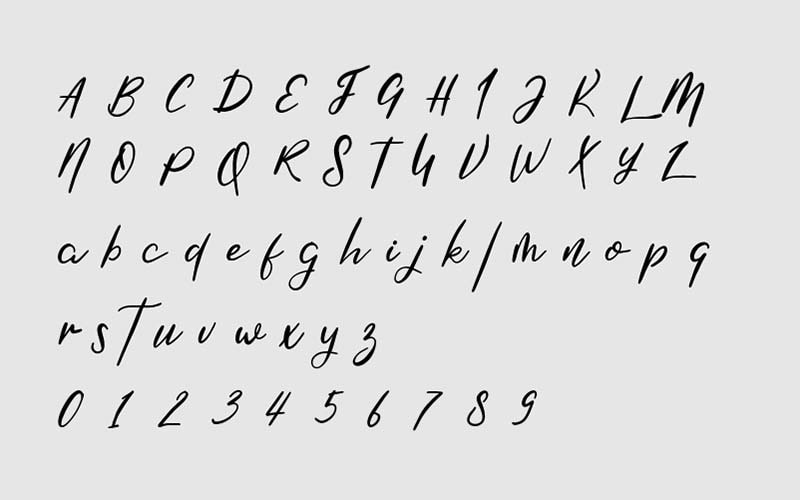
Shirahoshi Font is a handwritten dancing script typeface that is created with the help of a brush. Hyee Gun took charge of designing and launching it for the first time.
This awesome font is available in a single unique style with True Type features. This is a cute typeface that is inspired by one of the beautiful mermaid figures in the One Piece Manga.
This stunning font helps you design things like signatures, branding, social media posters, logotypes, brochures, flyers, unique emblems, special quotes, book covers, invitations, and much more.
When you look at its structure you will find a strong natural flow that occurs on the designer handmade structure. This is why the font adds sweetness to the design where it is applied.
It is very suitable for your design product for almost anything, such as logos, weddings, business cards, magazines, gift cards, clothes, T-shirts, cafe and restaurant menus, brands, Covers, wall frames, and typing on your computer.